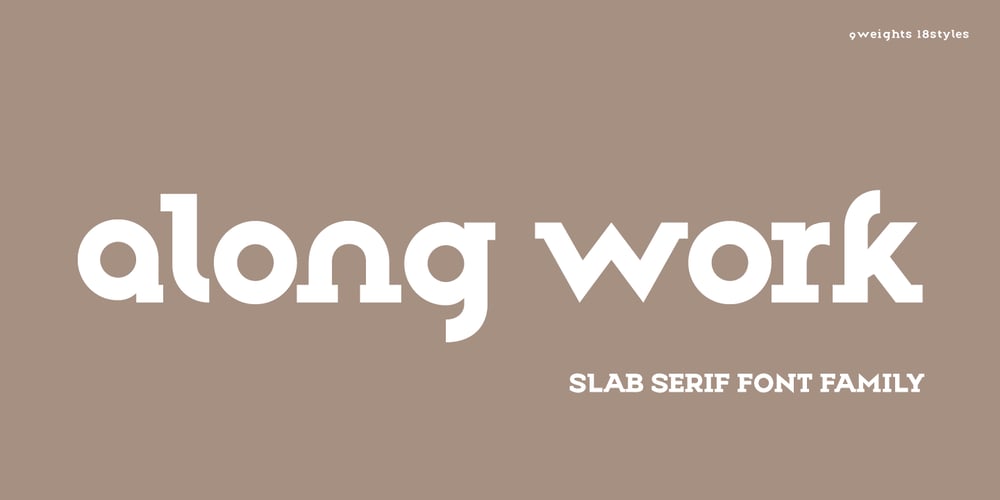
Along Slab Work Font Family was designed by Ryul Davidson and published by Brenners Template. Along Slab Work contains 18 styles and family package options. Along Slab WORK is a elegant Slab Serif font family, which designed by Ryuld Davidson of the Brenners Template.It retains the skeleton of the Along Sans S2(https://www.myfonts.com/fonts/brenners-template/along-sans)Especially, all italic styles were rhythmically redesigned for inspiration of glyphs.This font family has a unique personality for each style and will help a designer’s choice.